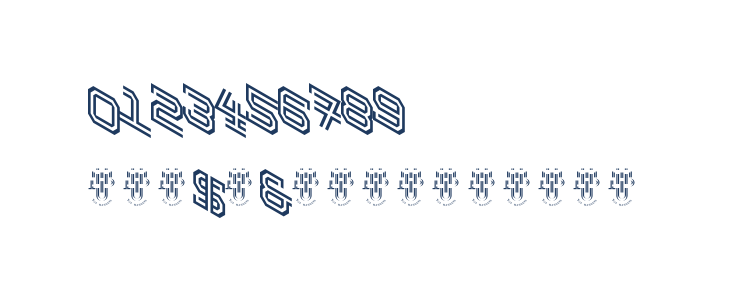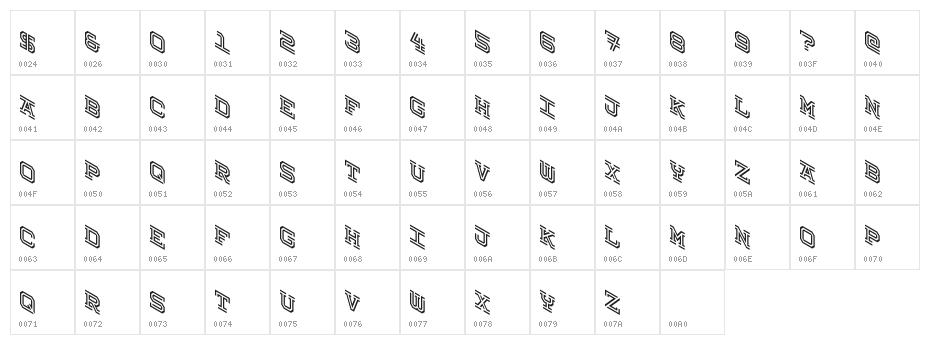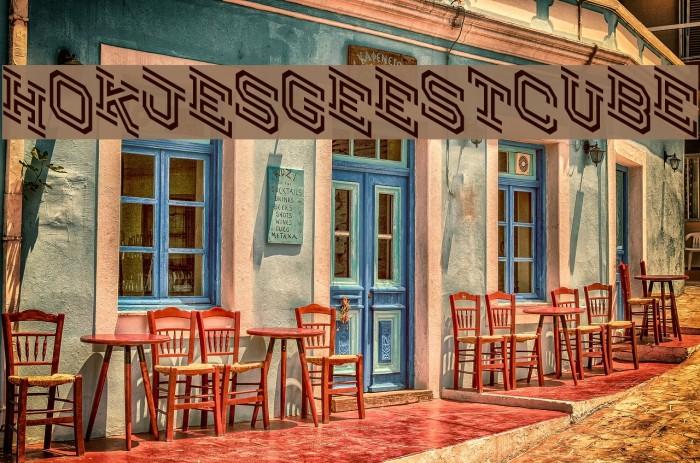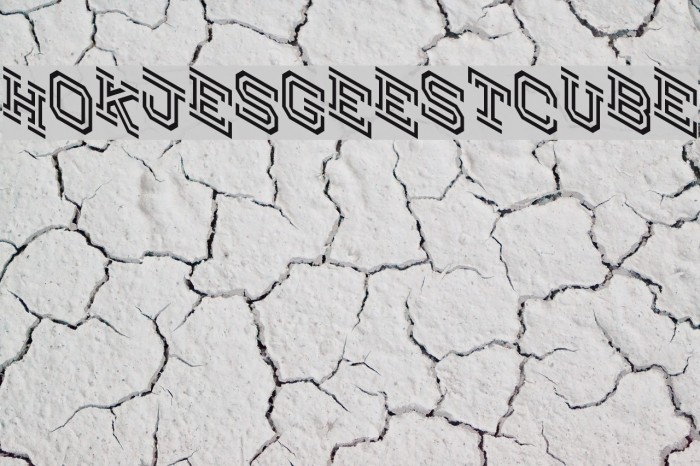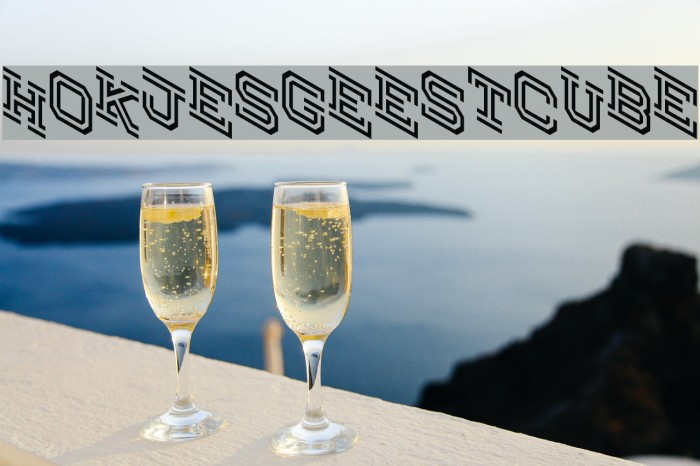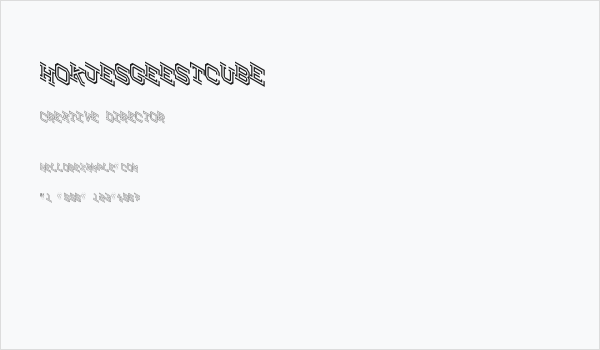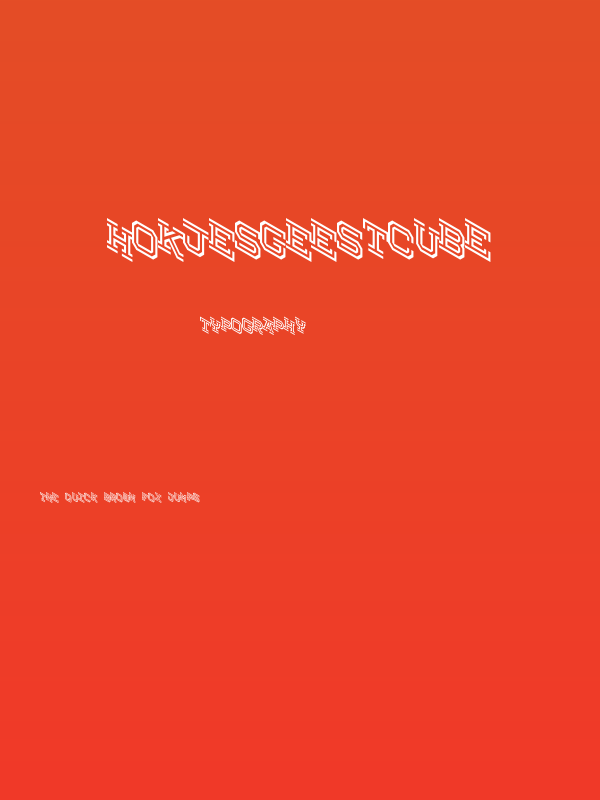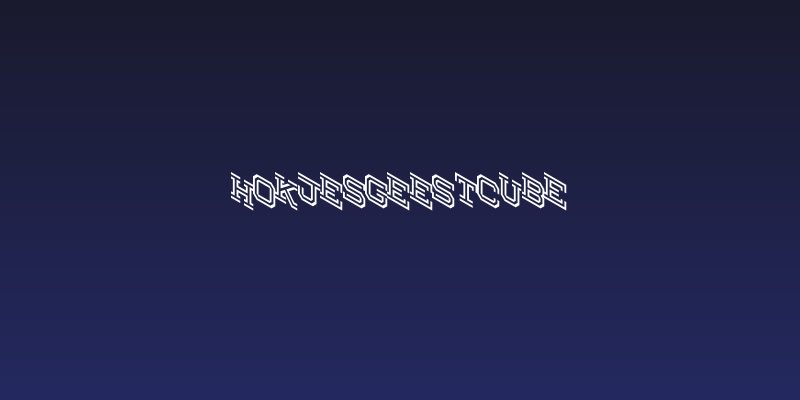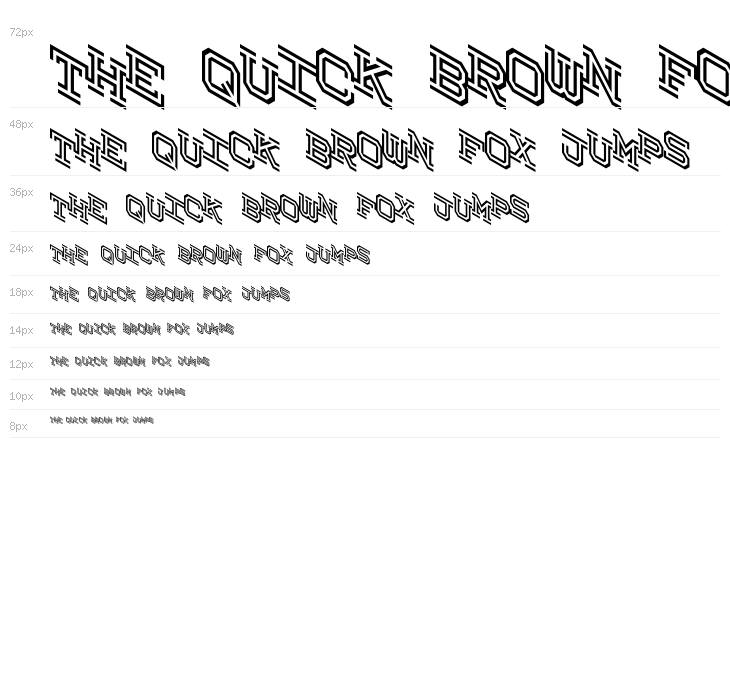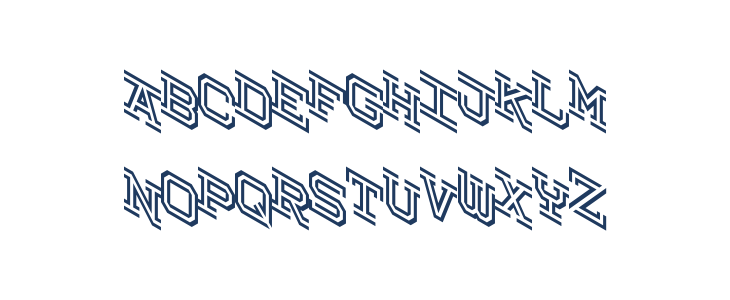
Hokjesgeestcube Font
Hokjesgeestcube Description
This font features a bold, geometric design with a three-dimensional effect, giving it a unique and modern appearance. The characters are constructed with thick, angular lines that create a sense of depth and perspective. Each letter and number is outlined with a double line, enhancing the 3D illusion. The font maintains a consistent structure across all characters, providing a cohesive look. The special characters are designed with the same attention to detail, ensuring they blend seamlessly with the rest of the font. This style is eye-catching and suitable for projects that require a strong visual impact.